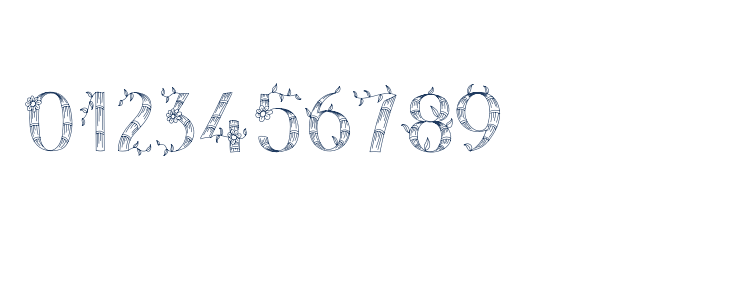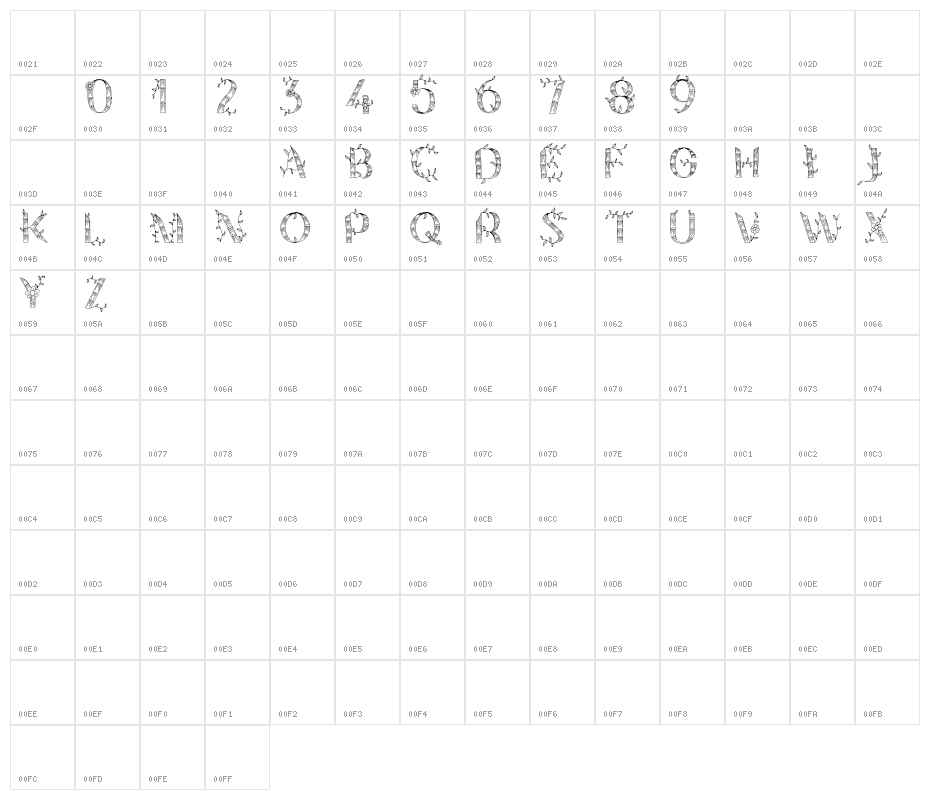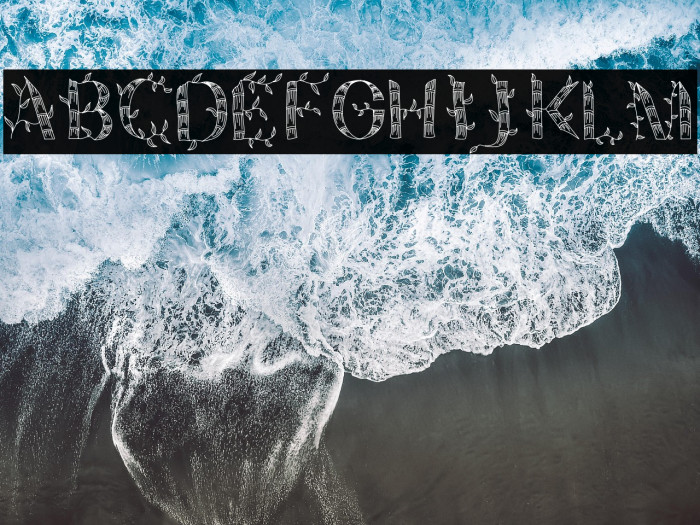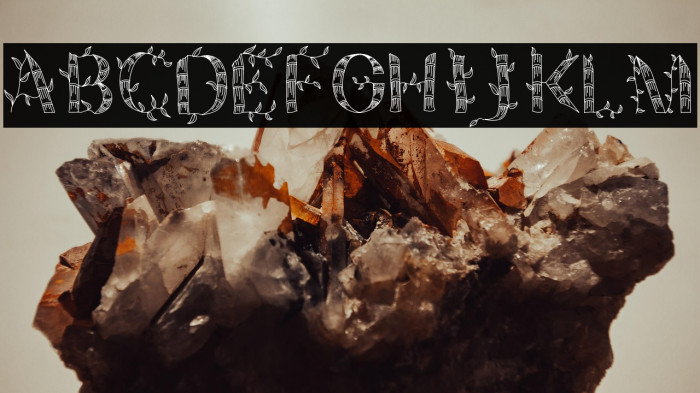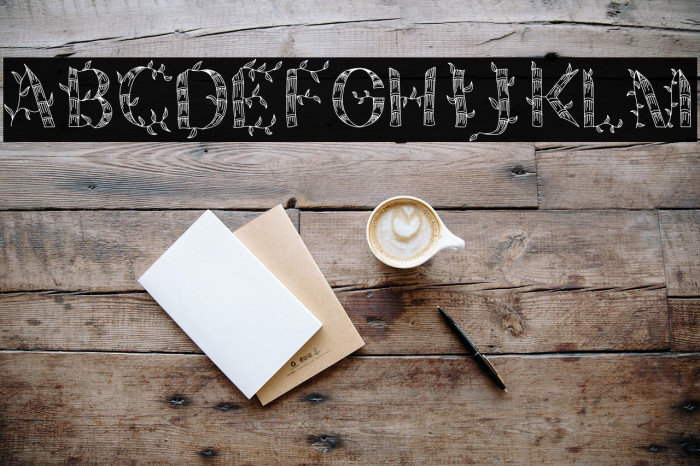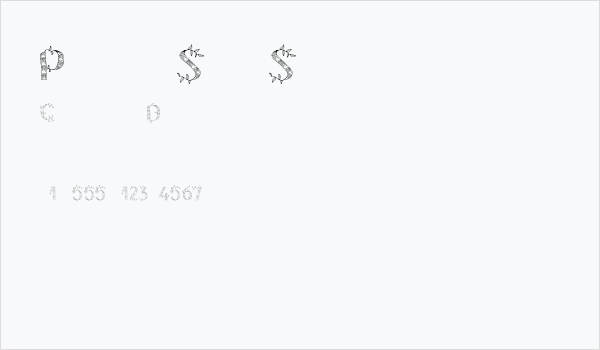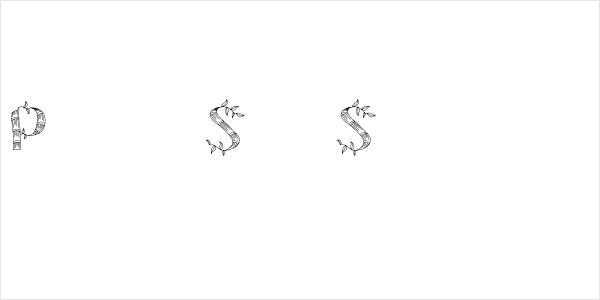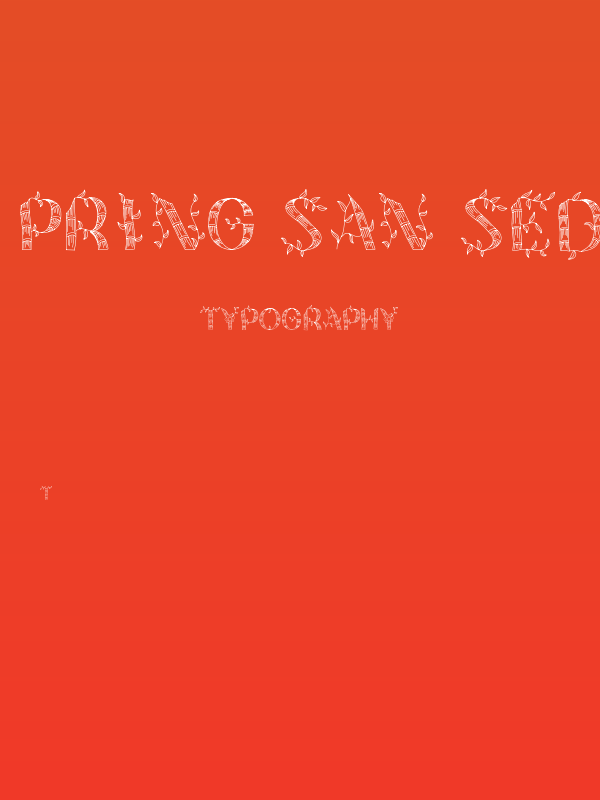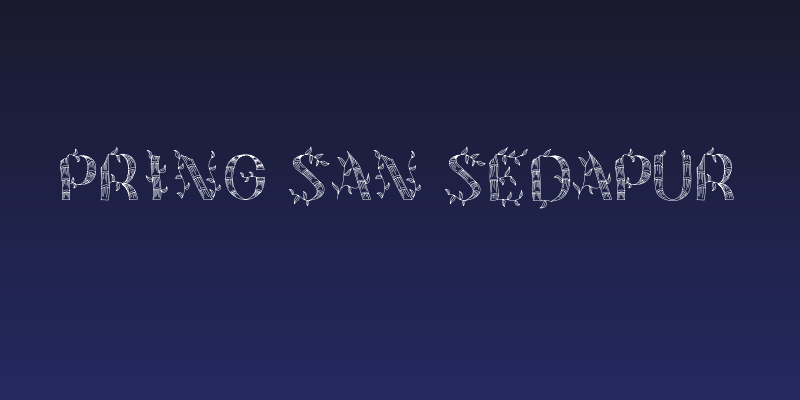
Pring San Sedapur Font
Pring San Sedapur Description
This decorative font features a whimsical and intricate design, incorporating floral and vine elements into each character. The uppercase letters and numbers are adorned with leaves and flowers, creating a nature-inspired aesthetic. The strokes are detailed with patterns that resemble wood or bark, adding texture and depth. This font is ideal for projects that require a touch of elegance and creativity, such as invitations, greeting cards, or branding for eco-friendly products. Its unique style captures attention and conveys a sense of organic beauty.
| Proposed Projects | Ideal for invitations, greeting cards, eco-friendly branding, and decorative posters. |